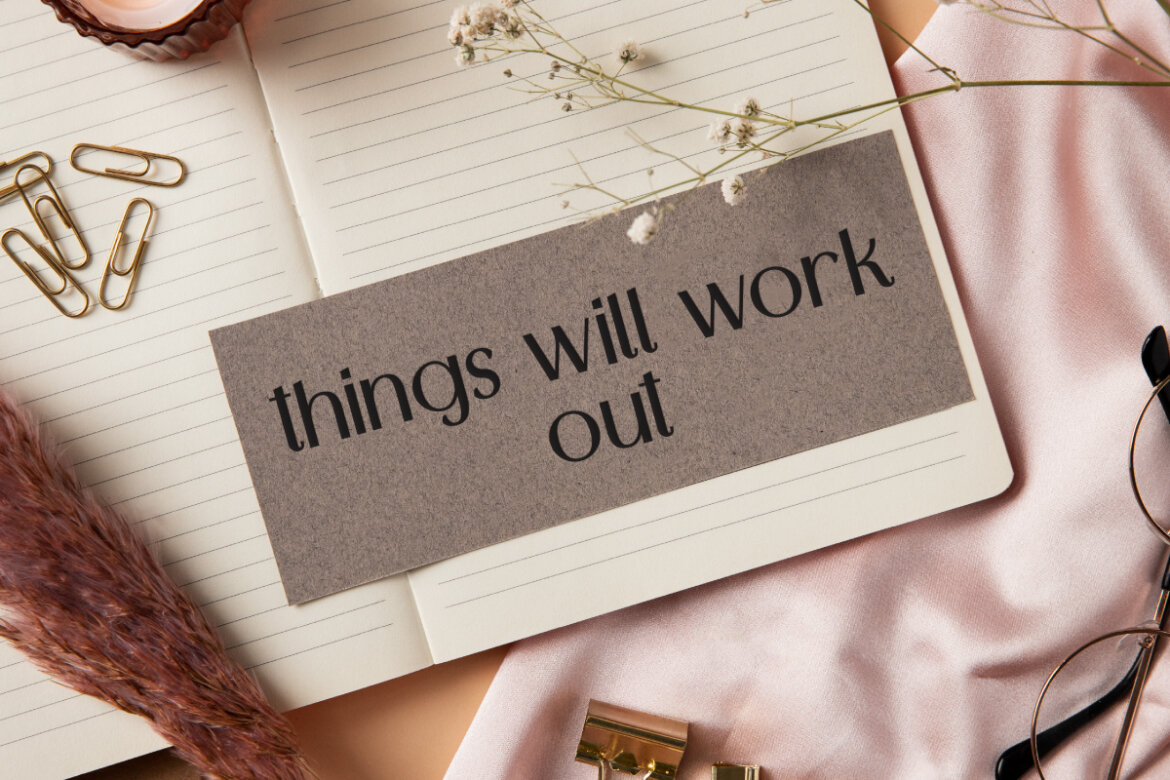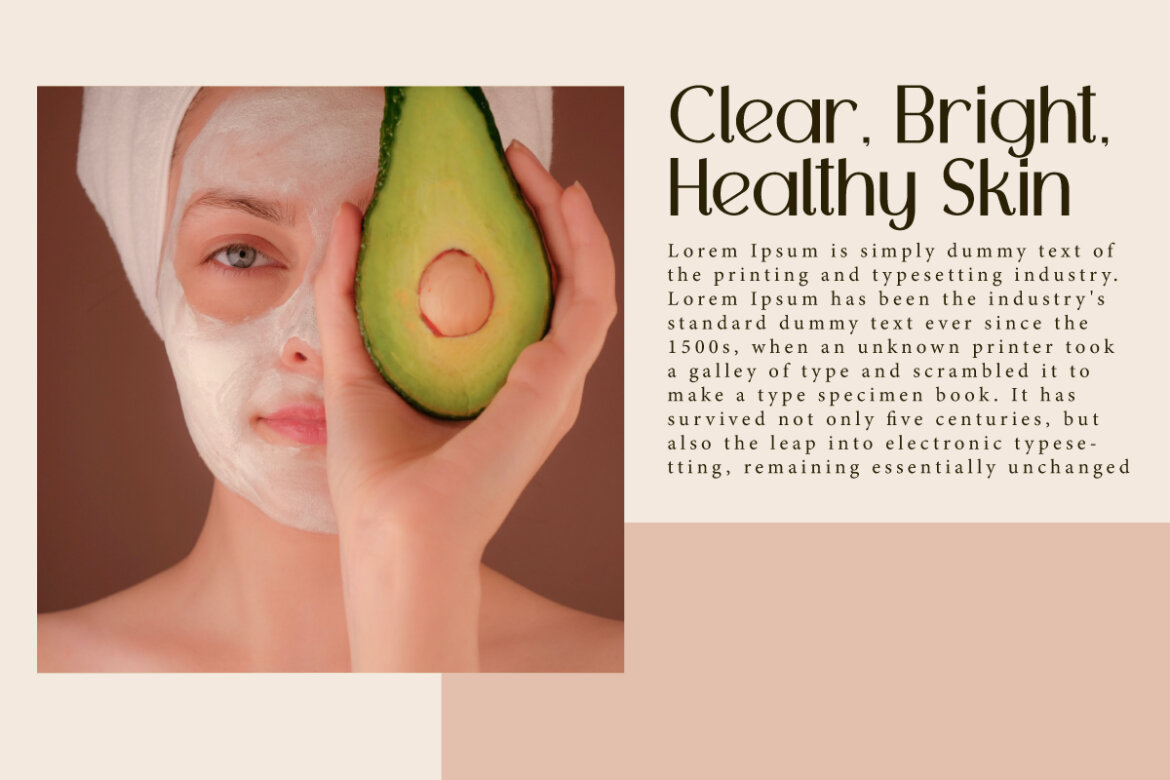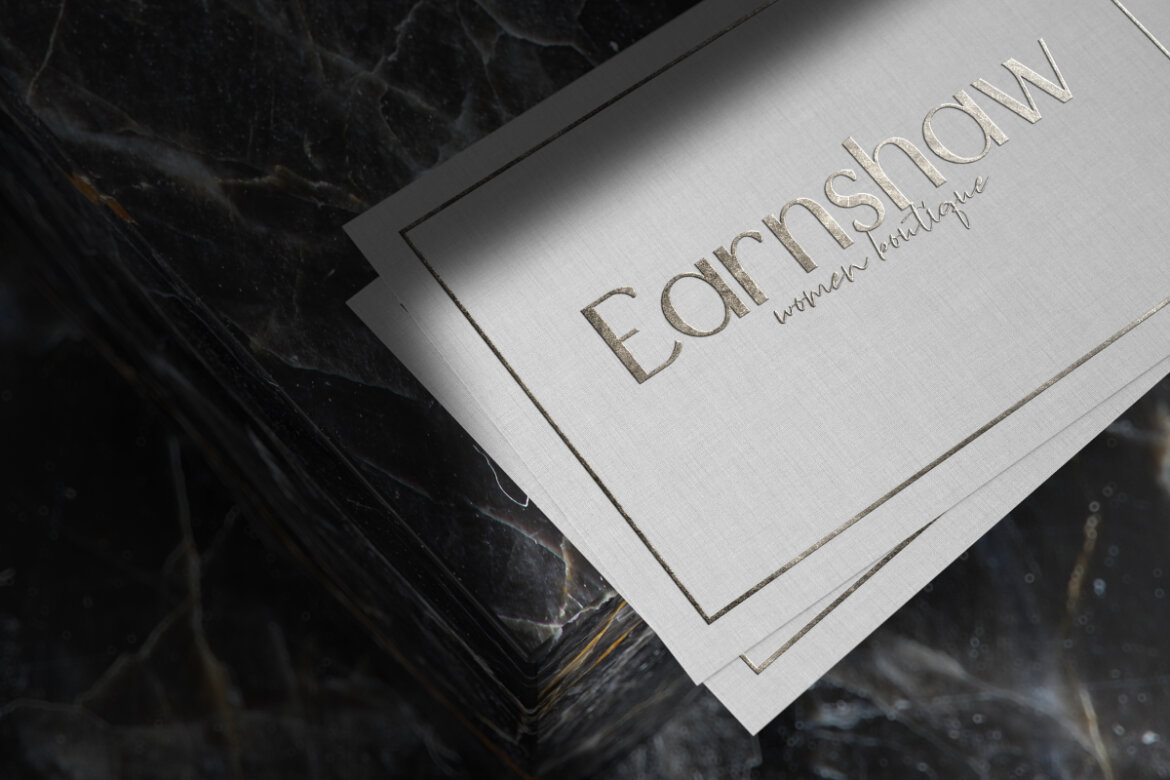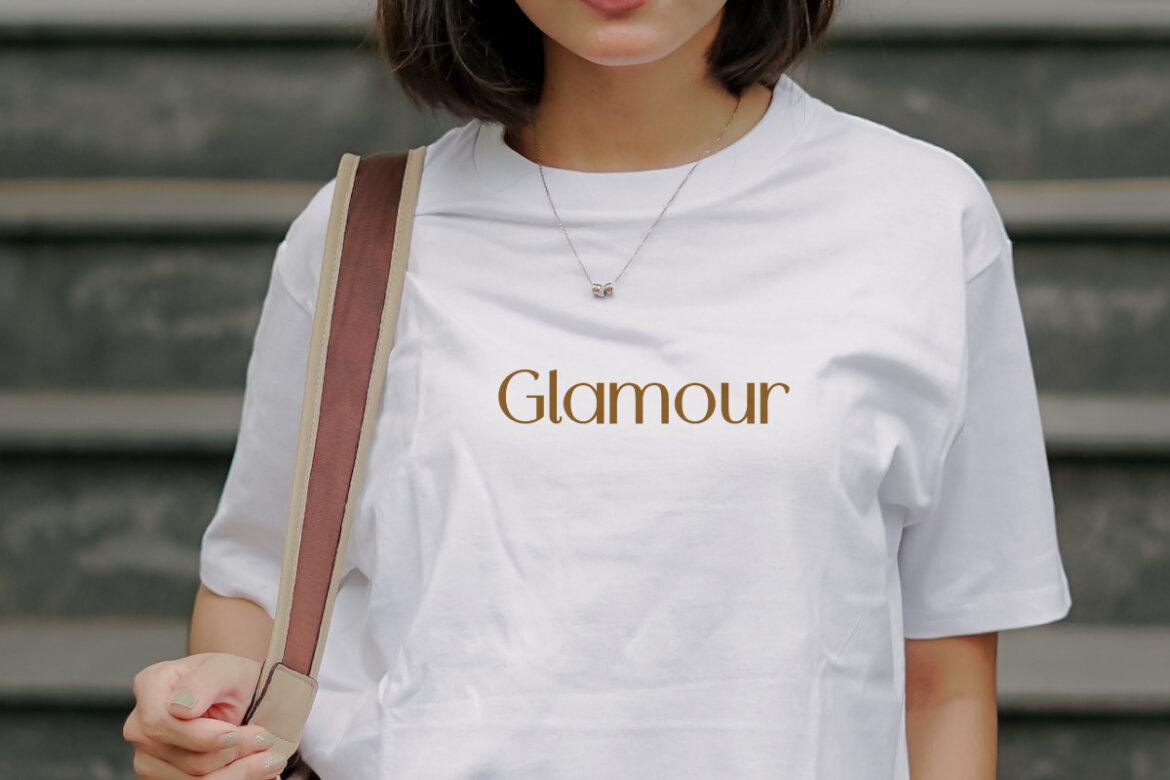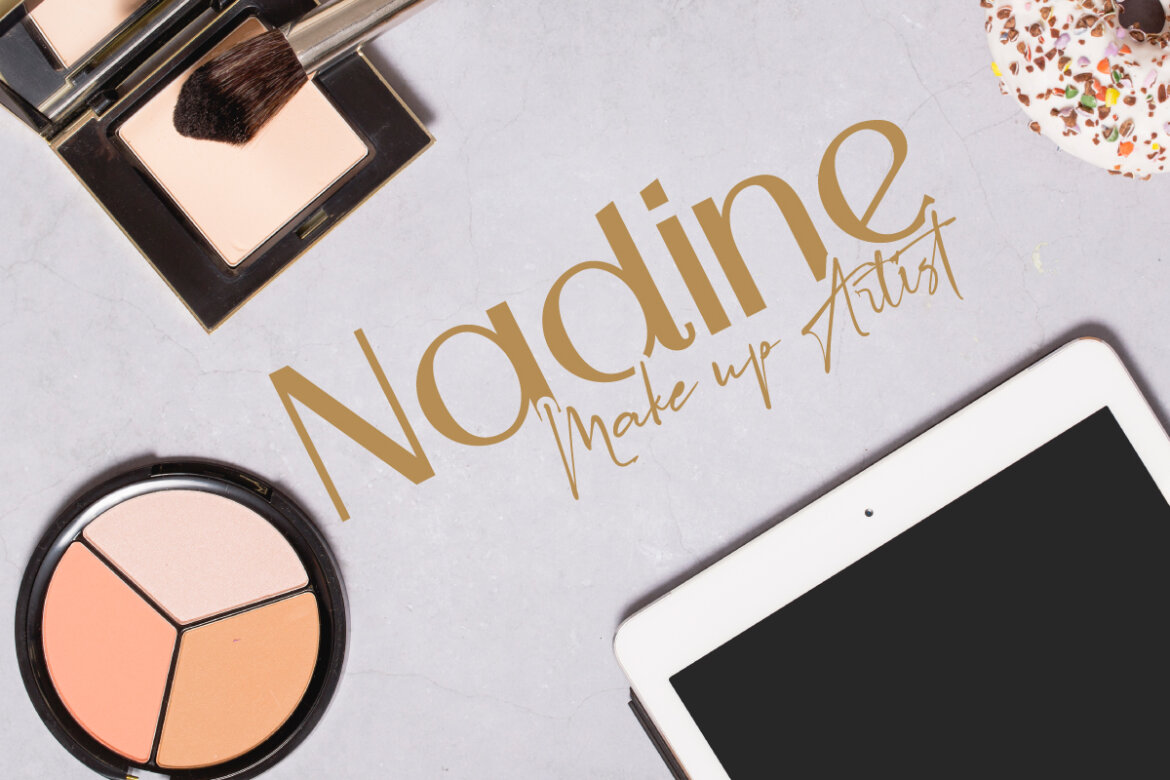
Roman Glamour FREE Font
Roman Glamour Font is a beautiful sans serif font with an elegant feel, this will make it a versatile typeface in any design such as, advertising, app header, brand identity, business card, corporate sign, cover, flyer, greeting cards, header, headline, invitation, labels, logo design, mockup, postcards, poster, print t-shirts, product packaging, quotes, signage, stationery, sticker, typographic design, website title, and much more.
Roman Glamour Font is a luxurious typeface that is not made to be excessive. The meaning is to provide a premium but simple font appearance so that it can be multifunctional for your industry, such as beauty clinic, bridal boutique, clothing brand, craft, make up artist, skincare, spa salon, etc. Also it includes a complete set of basic characters Uppercase and Lowercase, Numbers, Punctuation and Symbols.